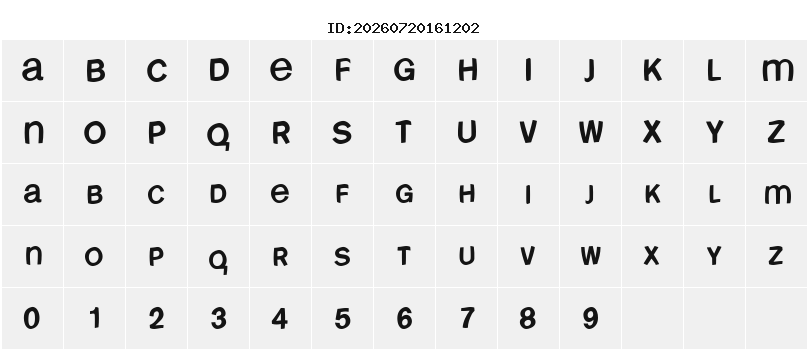
FreeBradburySans Preview
• Font Name: FreeBradburySans
• Full Font Name: FreeBradburySans Medium
About FreeBradburySans.ttf
FreeBradburySans.ttf is a modern, elegant sans-serif font designed for ultimate readability and visual harmony. Perfect for branding, headlines, web design, and print materials.